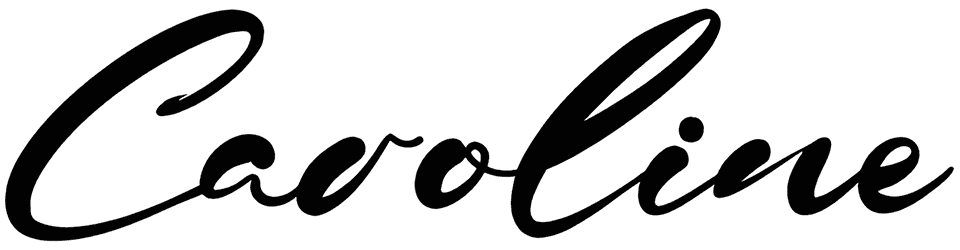
Caroline Font
When much of your audience goes off the chart, an extra pair of hands is necessary if you don’t want the quality of your work to suffer. Nothing does the trick any better than this script font.